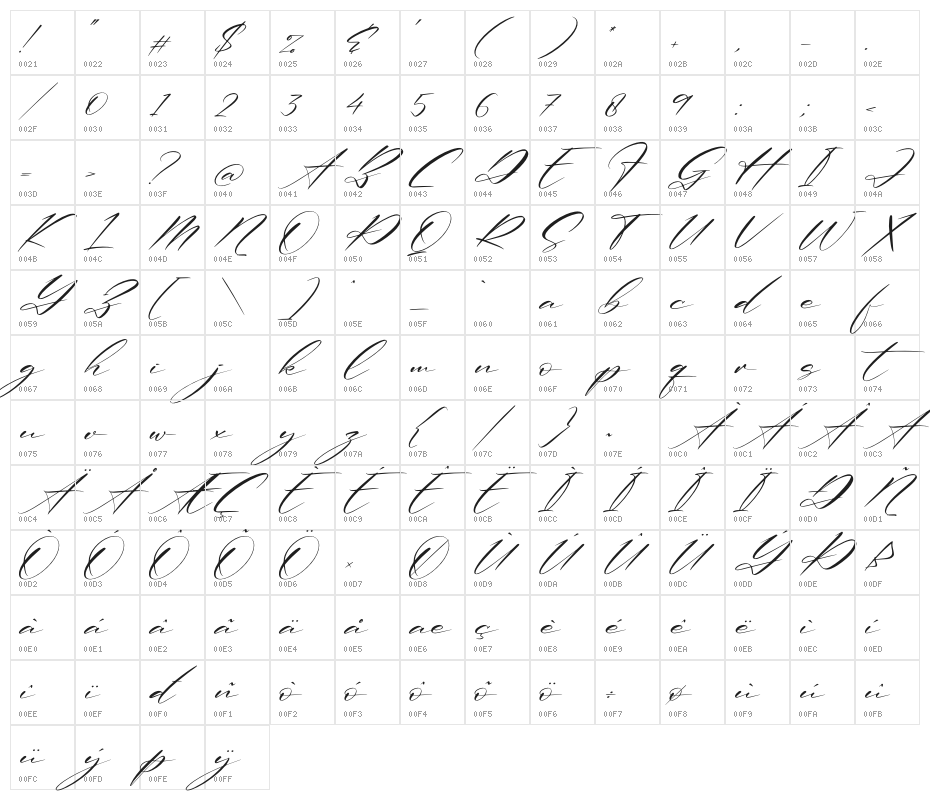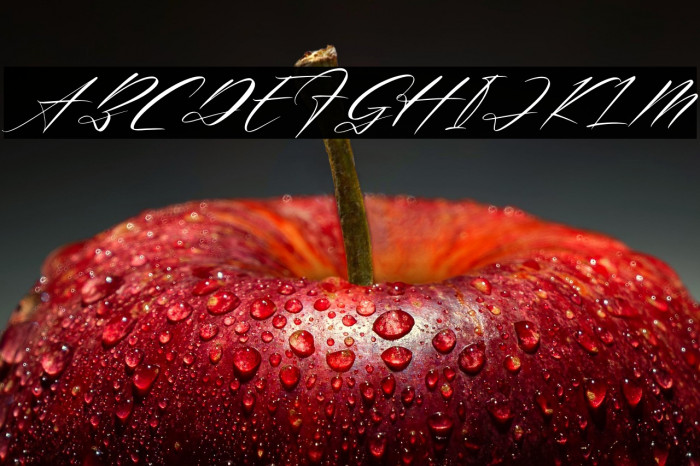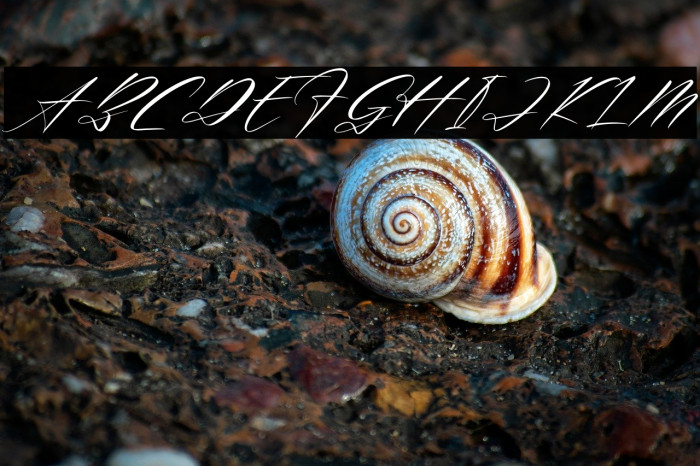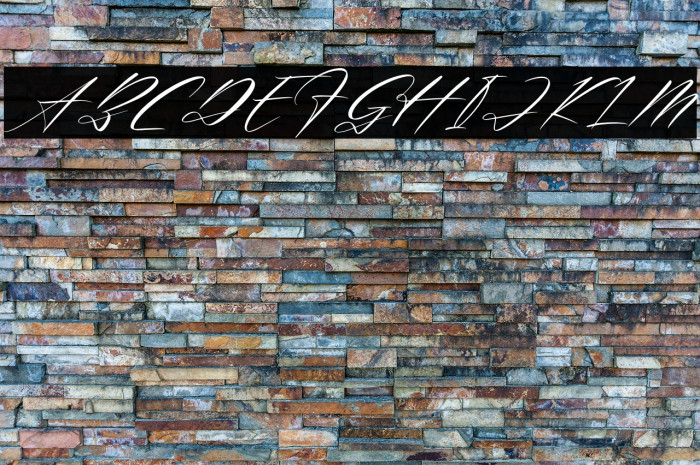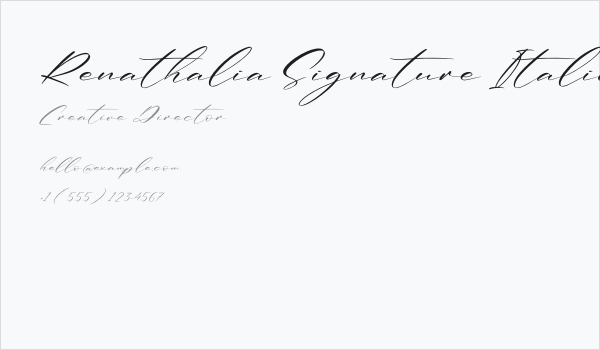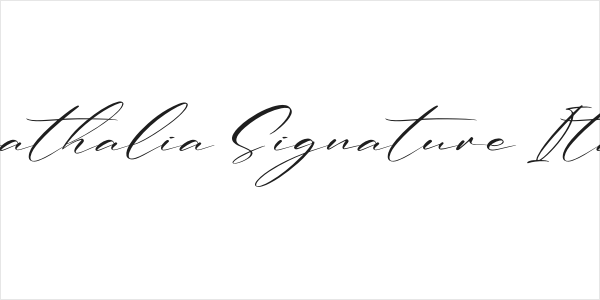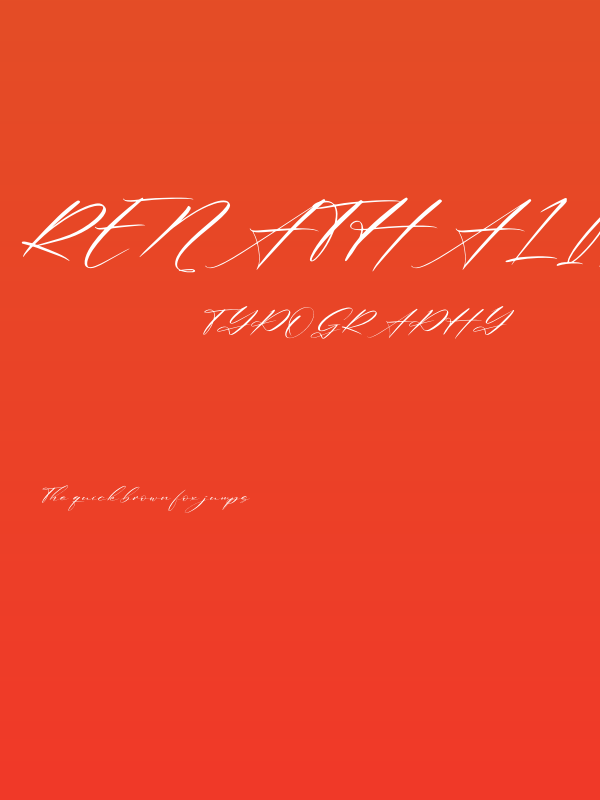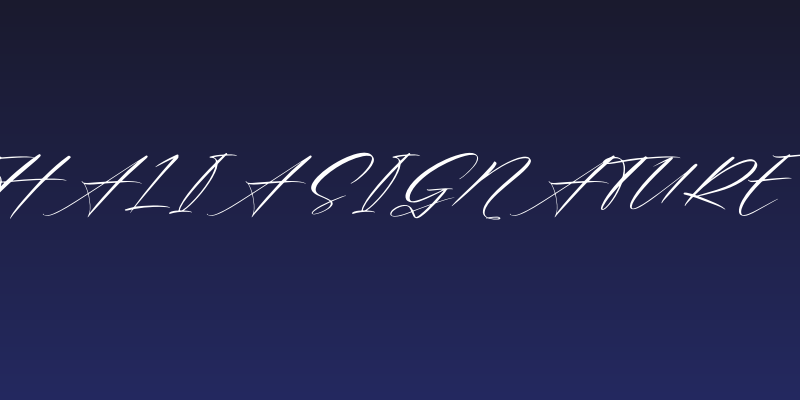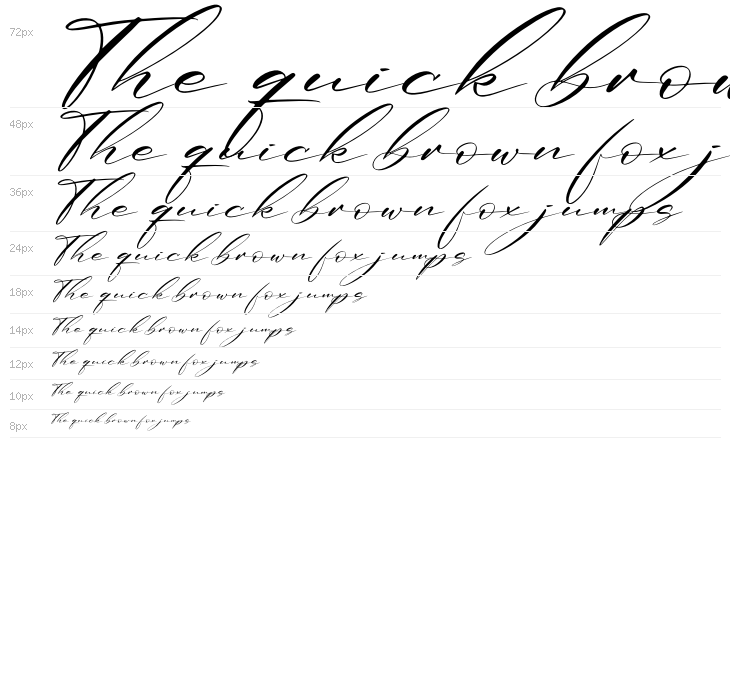
Renathalia Signature Italic Font
Renathalia Signature Italic Description
This elegant script font features a flowing, cursive style that mimics the fluidity of a handwritten signature. The letters are connected with smooth, sweeping strokes, giving it a sophisticated and personal touch. The uppercase letters are slightly more elaborate, with flourishes that add a touch of drama, while the lowercase letters maintain a consistent, graceful flow. The numerals and special characters complement the alphabet with similar stylistic elements, ensuring a cohesive look across all text. The italic slant enhances the dynamic feel of the font, making it ideal for projects that require a personal or artistic flair.
| Overall Style | Elegant, Personal |
| Proposed Projects | Ideal for wedding invitations, personal branding, logos, and elegant stationery. |